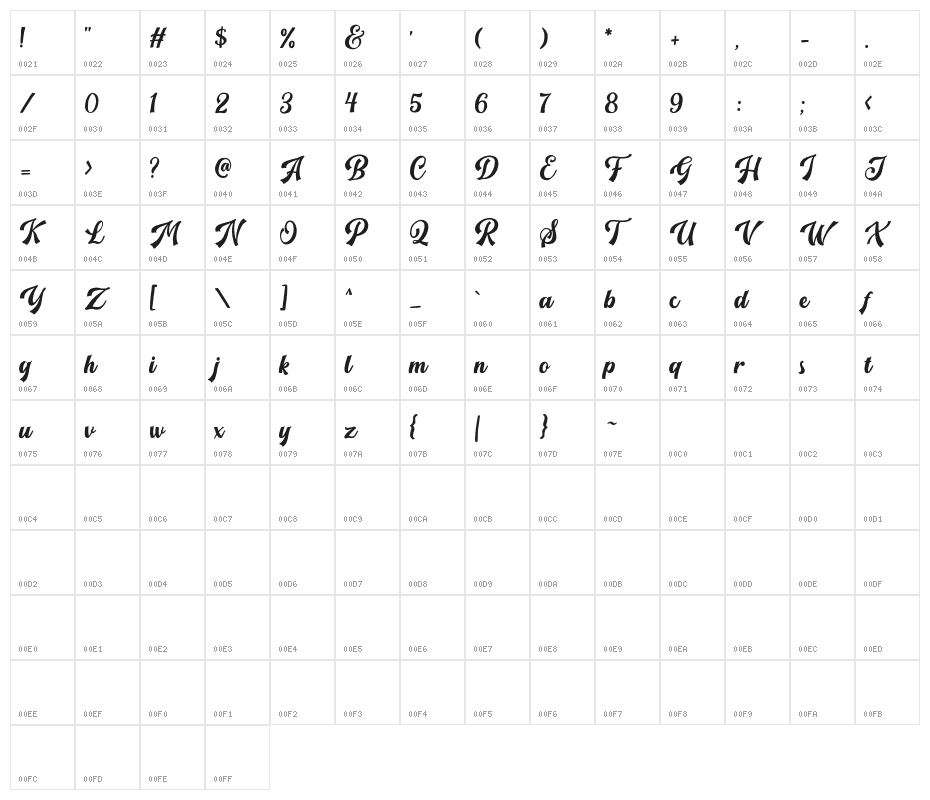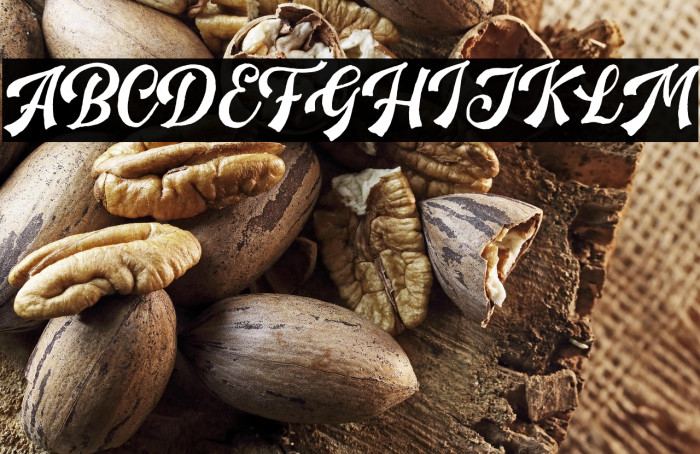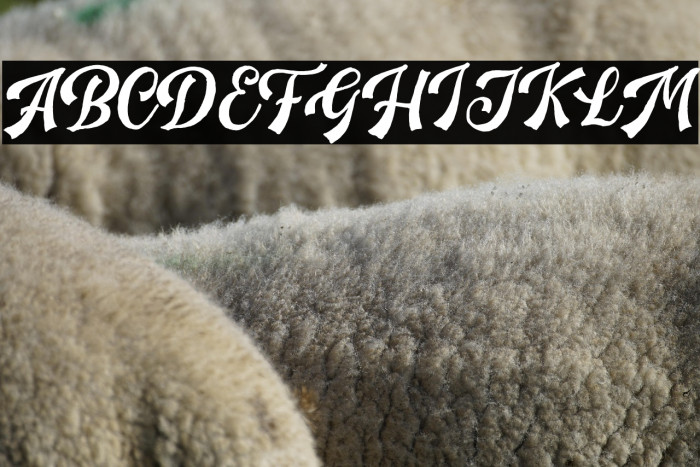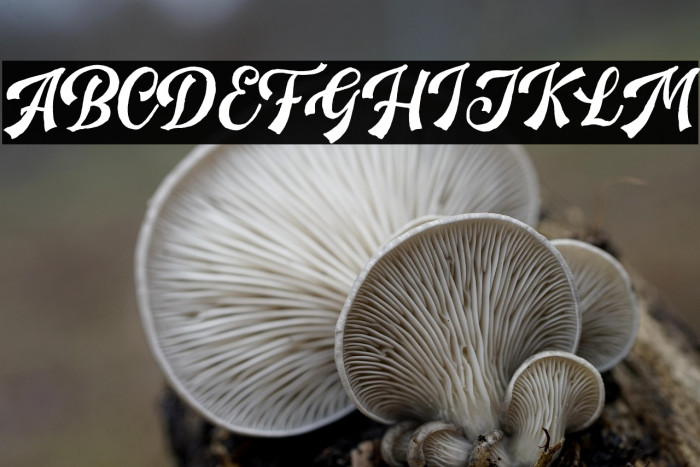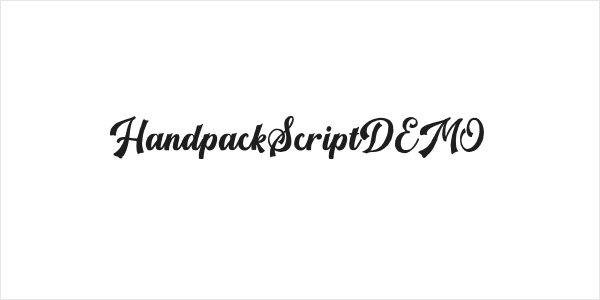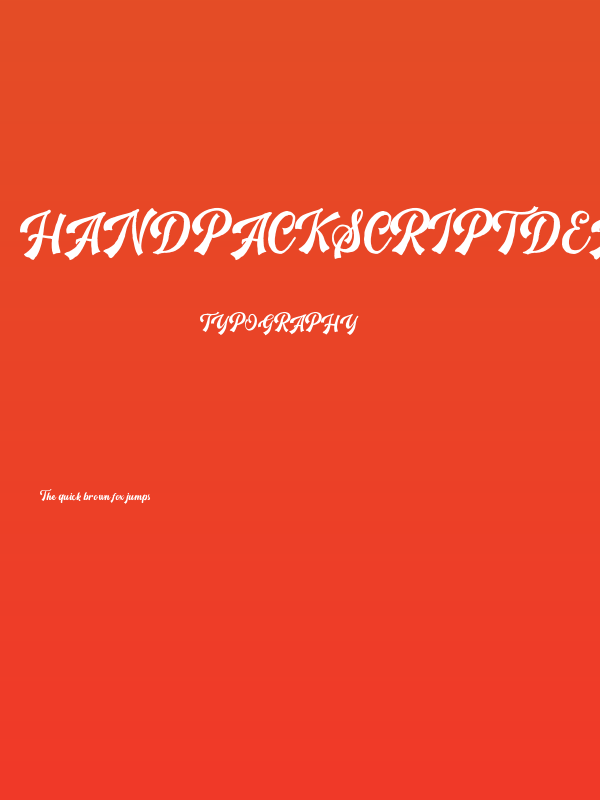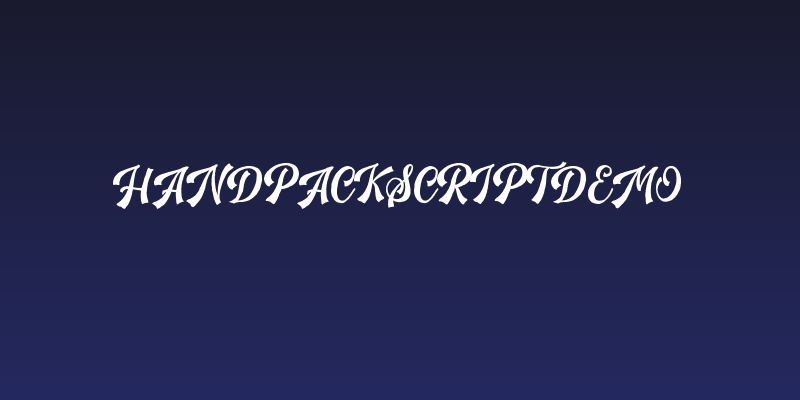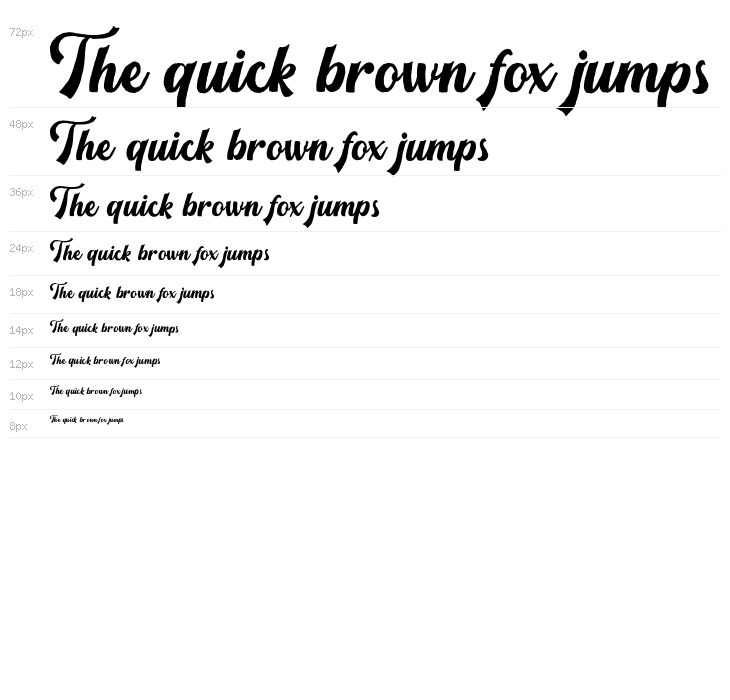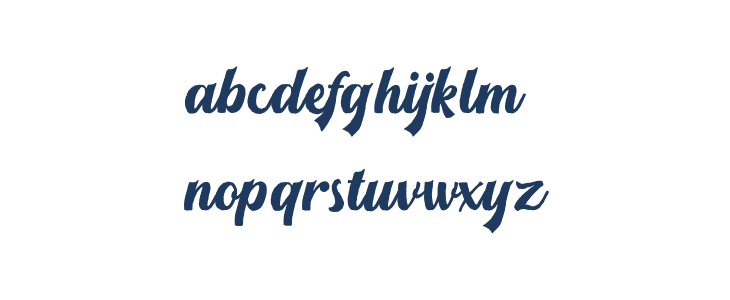
HandpackScriptDEMO Font
HandpackScriptDEMO Description
This font features a bold and expressive script style with a strong calligraphic influence. The letters are characterized by their flowing, cursive forms and dramatic flourishes, giving it a dynamic and elegant appearance. The uppercase letters are particularly ornate, with sweeping strokes and intricate details, while the lowercase letters maintain a consistent rhythm and balance. The numerals and special characters complement the overall style, ensuring versatility in various design applications. This font is ideal for creating impactful headlines, logos, and branding materials that require a touch of sophistication and flair.
| Proposed Projects | Ideal for wedding invitations, luxury branding, elegant packaging, and artistic posters. |